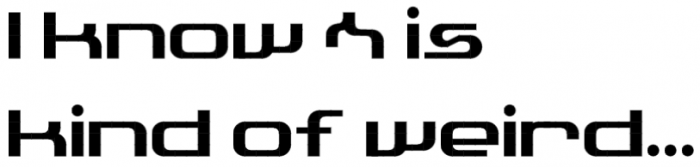
Wow, great curves here, well done! I, too, think the slanted line disturbs the feel of the glyph and wonder if the e could be arranged into an s. I know, you'd lose the full-height curves at its sides but it wouldn't look strange as it would match the e.
this is an interesting creation. To me, It doesn't look like it fits lowwerc. I 'd say you can copy upper to lowwer and curve them :)
Man this is a solid piece of work Se7en, I really like the curves..
The only thing I got is that the lower case s looks like it had a accident.. :P
Wow, great curves here, well done! I, too, think the slanted line disturbs the feel of the glyph and wonder if the e could be arranged into an s. I know, you'd lose the full-height curves at its sides but it wouldn't look strange as it would match the e.
Very good! I especially like your solutions for fractions e.g. ½
Awesome font, btw.
Solid work you have there!